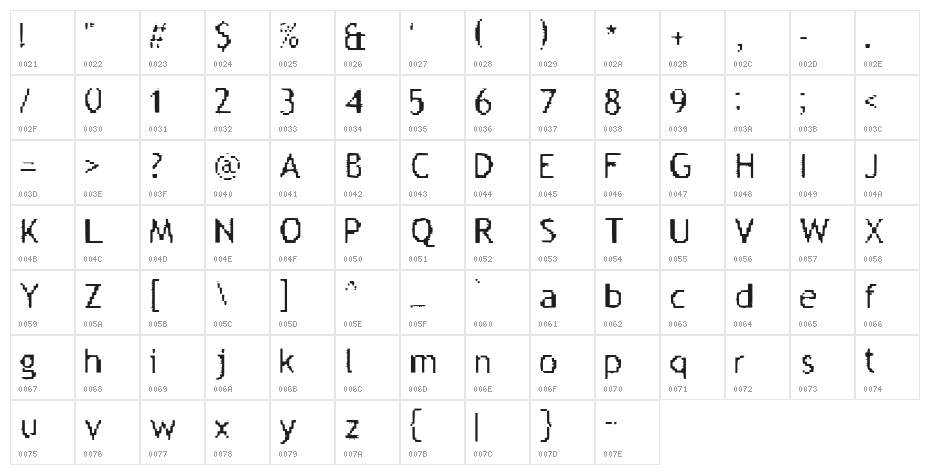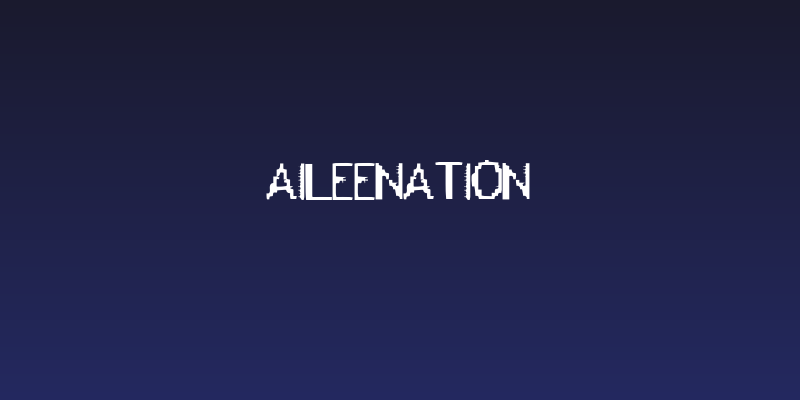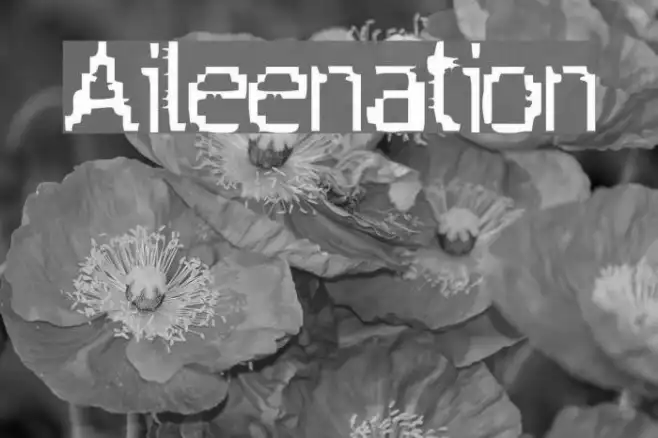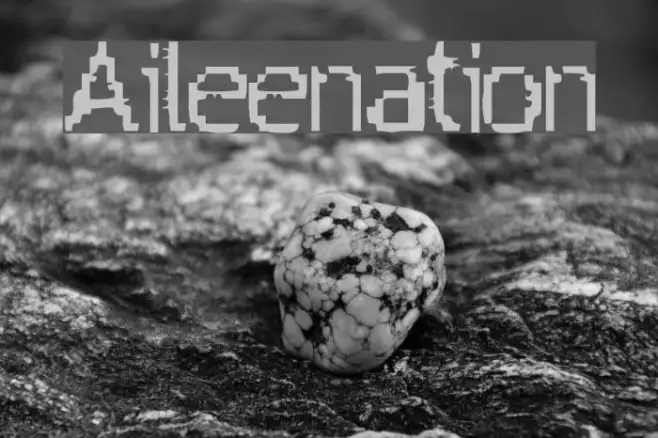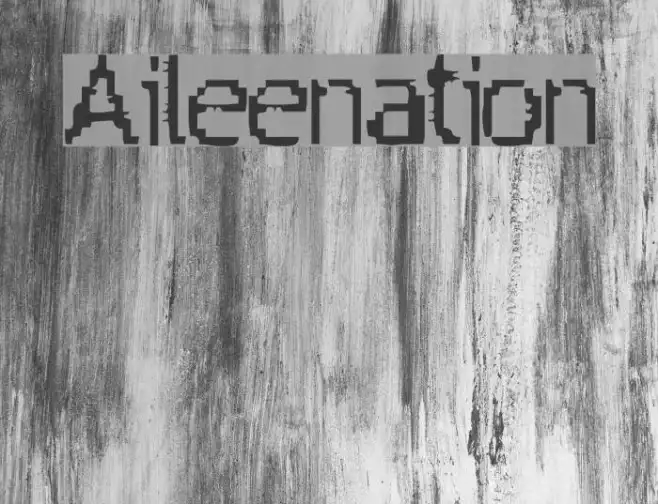
Aileenation Font
Aileenation Description
This font features a unique, distressed style with irregular edges and a rough texture, giving it a hand-crafted appearance. The characters are bold and have a slightly condensed width, which adds to their striking visual impact. The uppercase and lowercase letters maintain a consistent design, while the numbers and special characters complement the overall aesthetic. The font's uneven strokes and jagged outlines create a sense of movement and energy, making it ideal for projects that require a bold and unconventional look.
| Proposed Projects | This font is perfect for edgy branding, album covers, posters, and any design that requires a bold, artistic touch. |